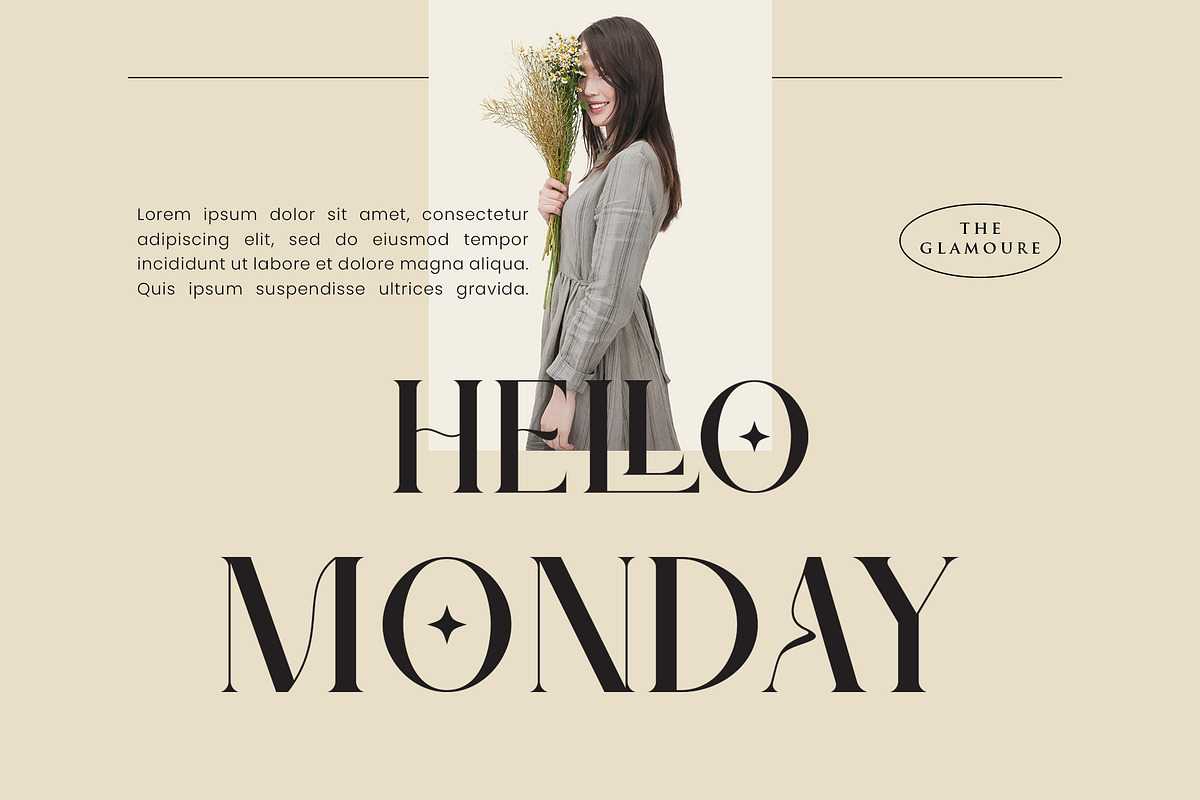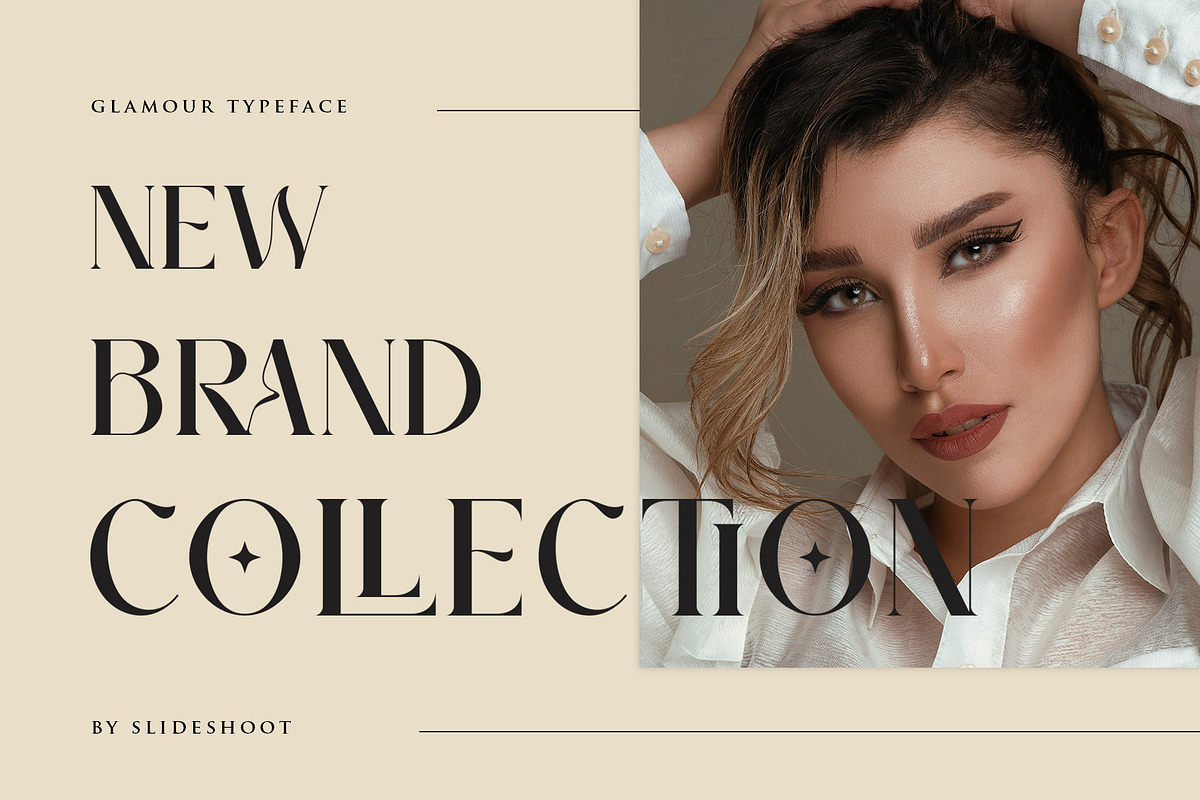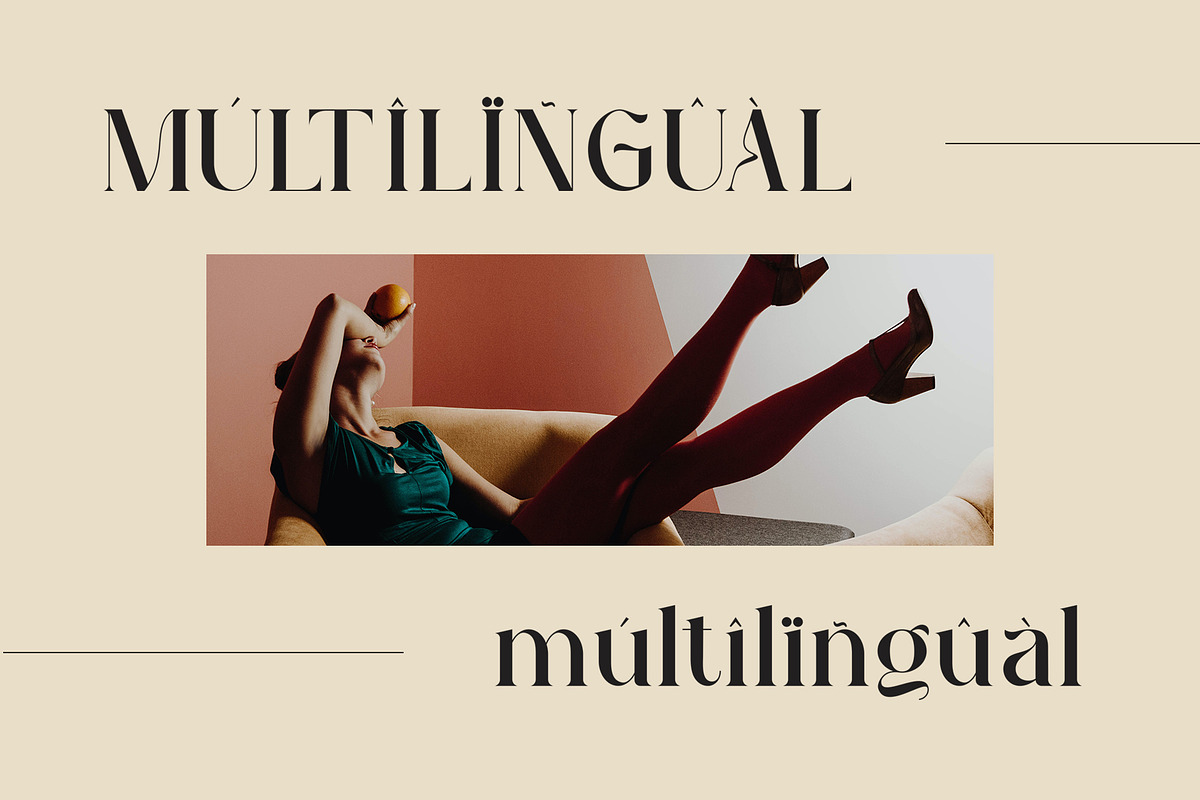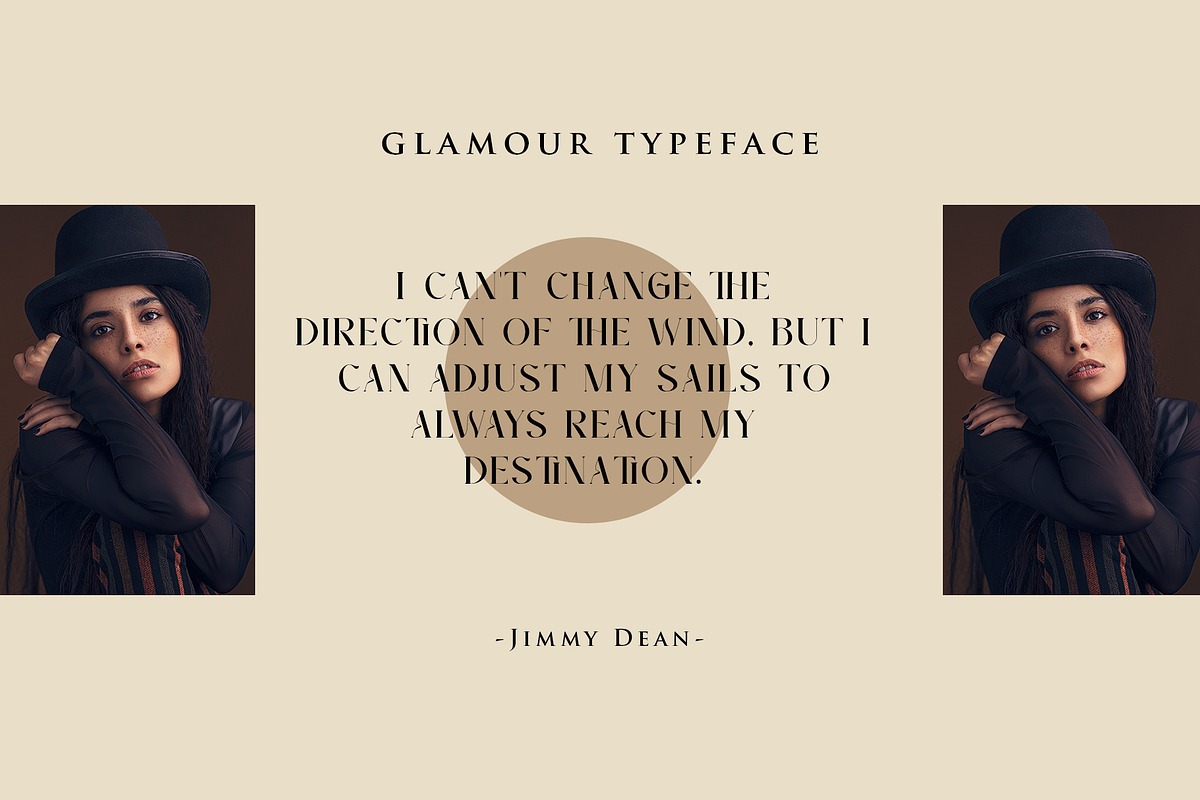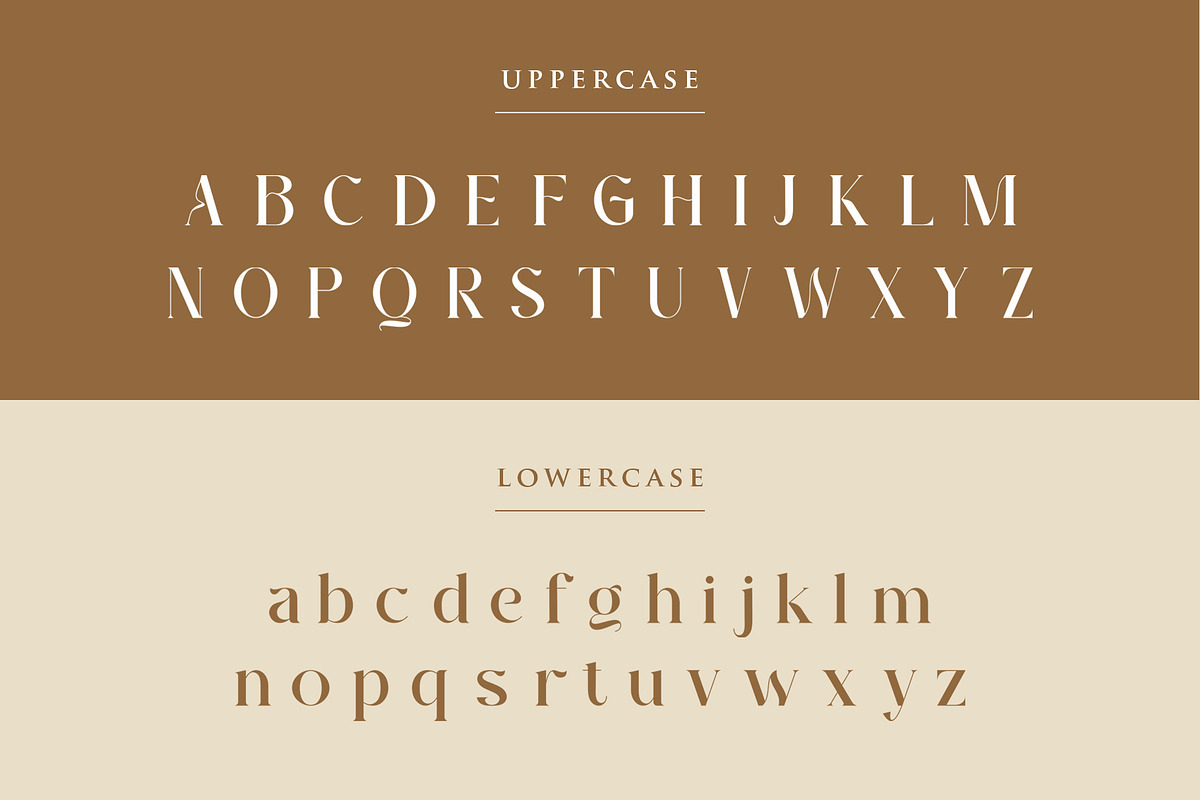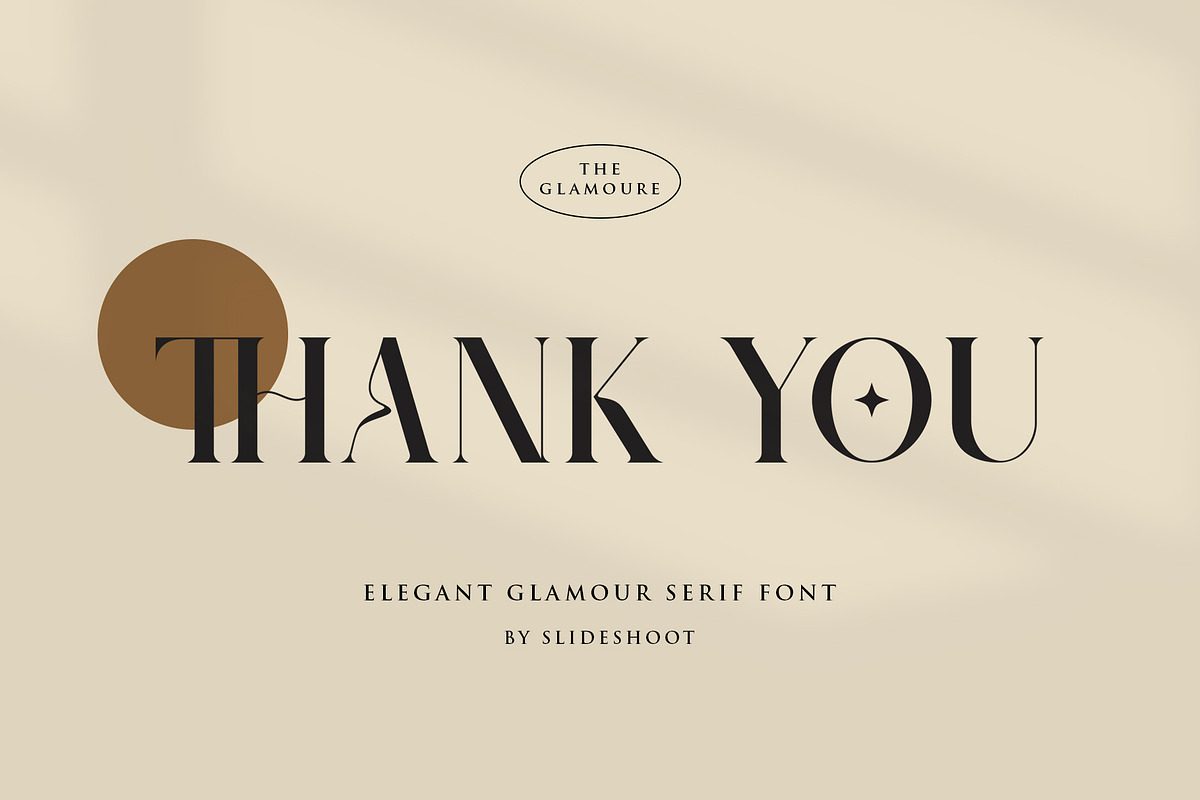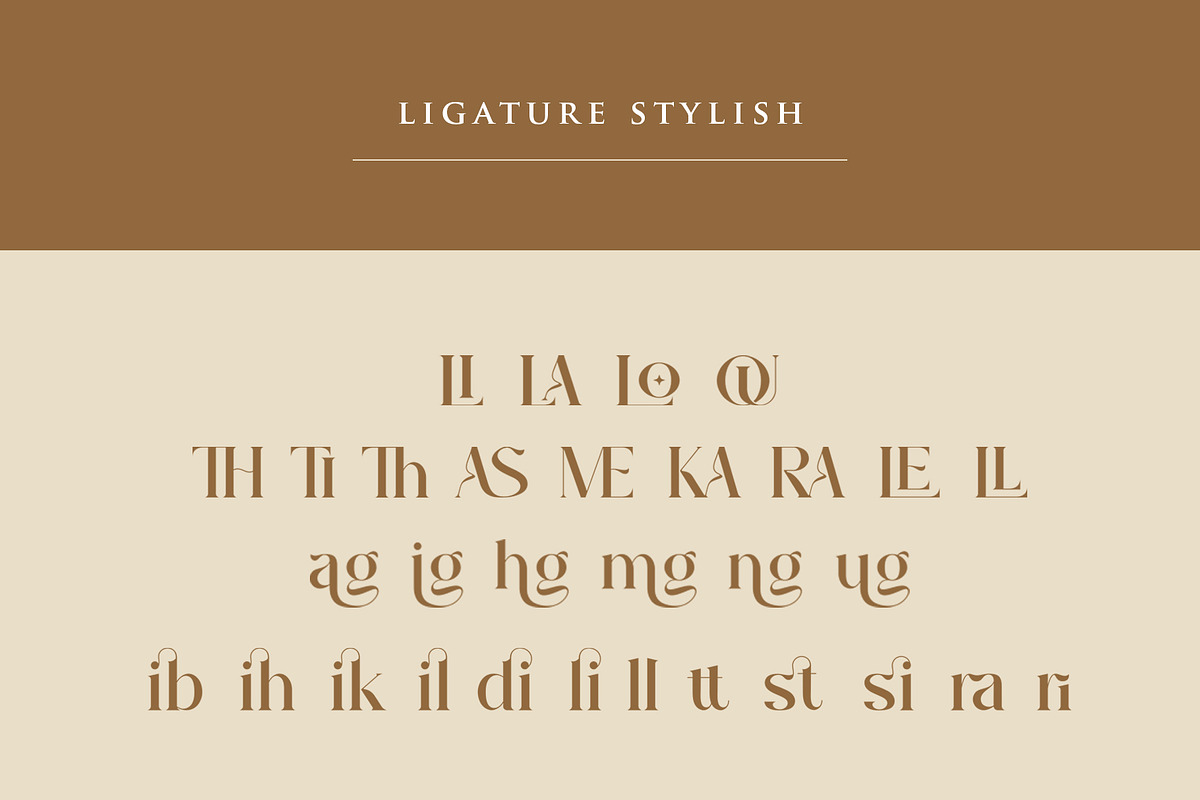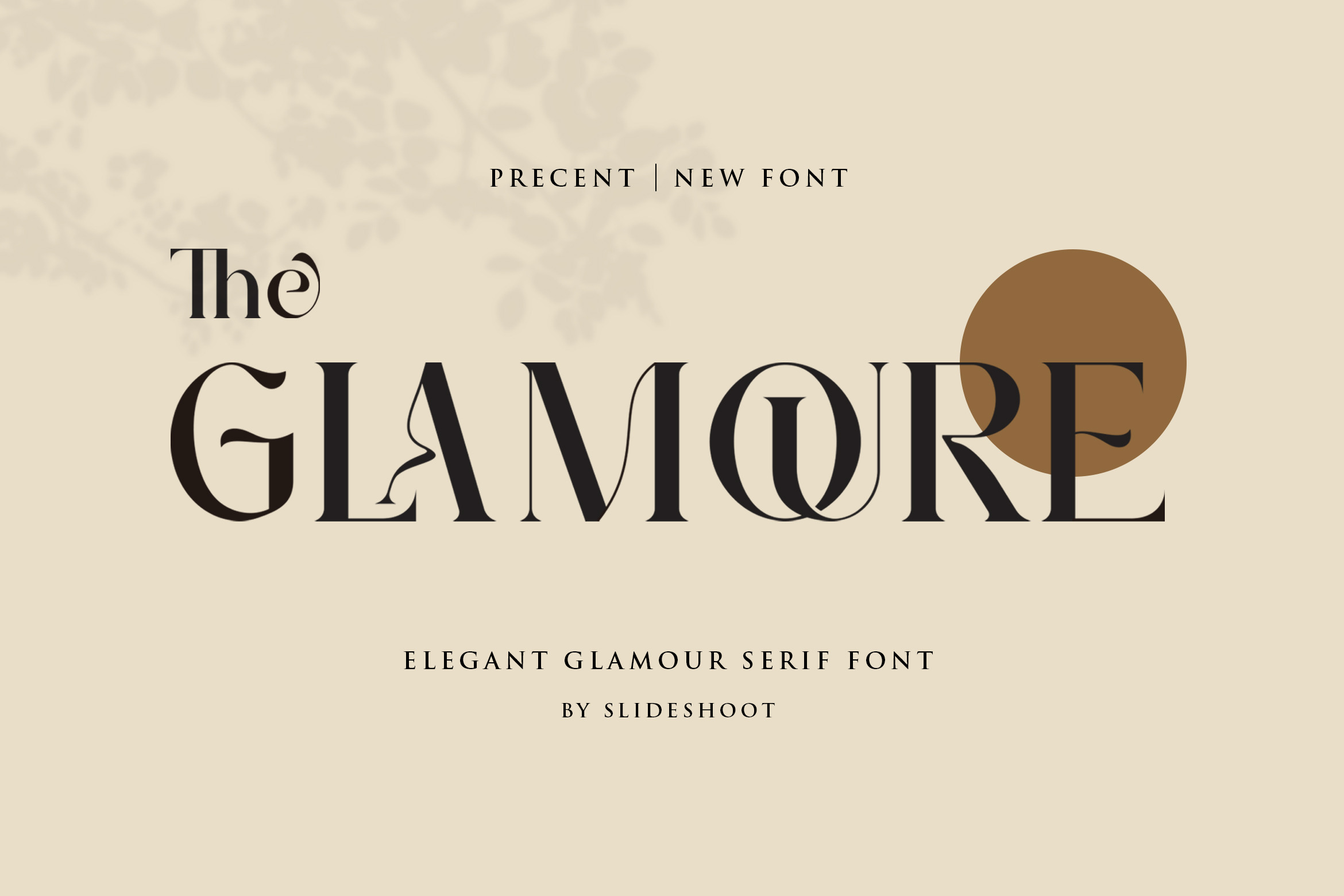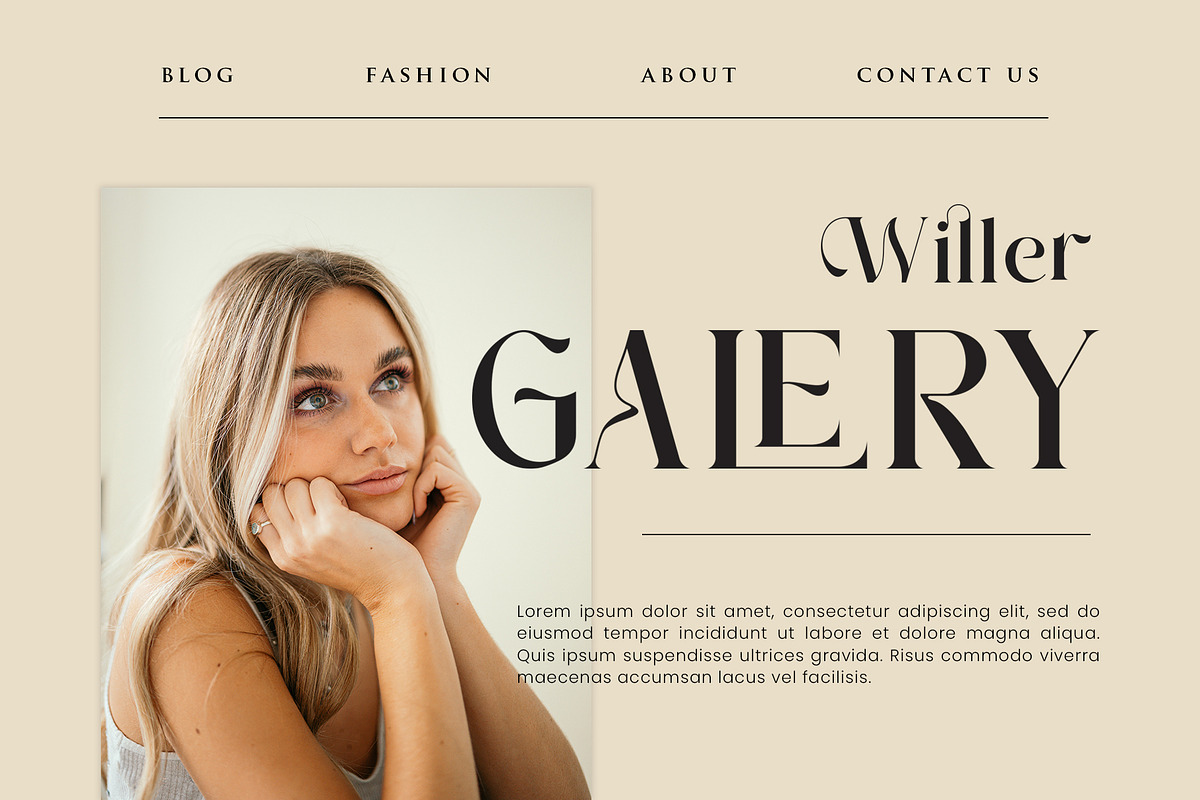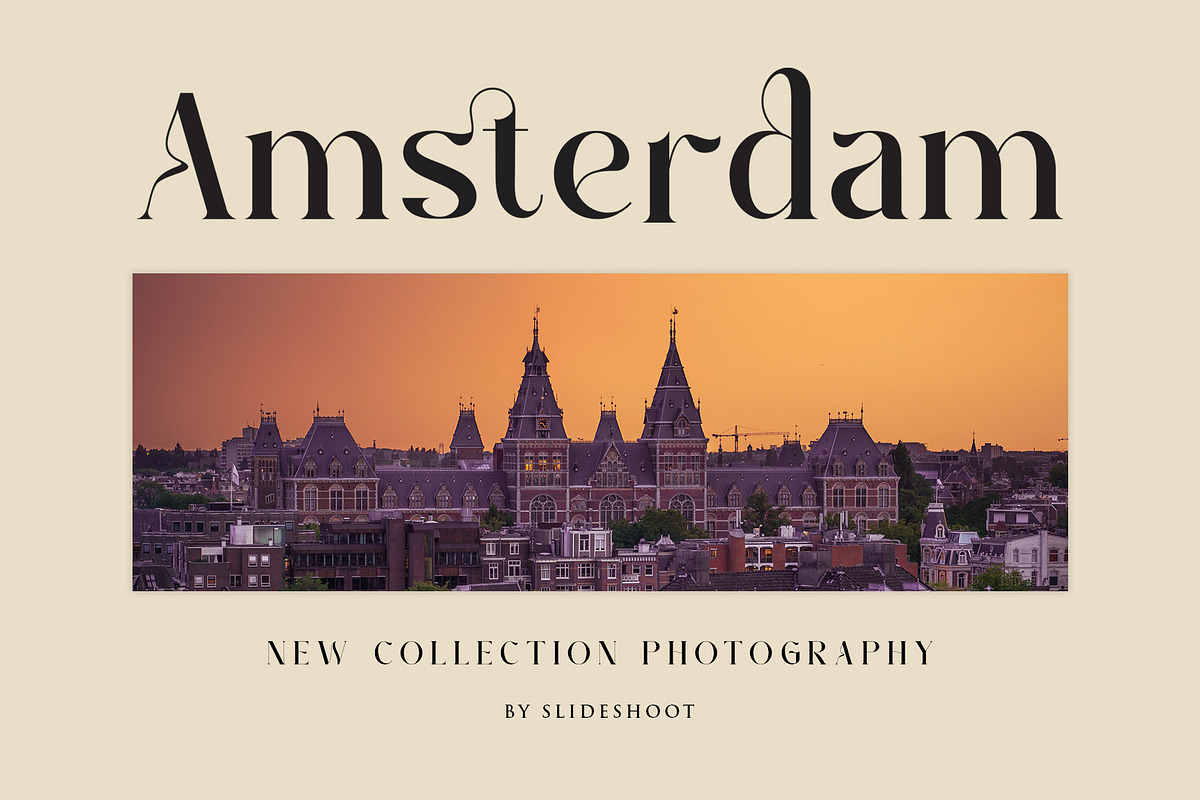
The Glamoure Serif Font
The Glamoure Serif is a balanced, smooth, elegant and stylish serif font. He has a beautiful character. It fits perfectly with invitation card designs, company logos, movie titles, movie names, business cards, book titles, brand names and various other designs. The Glamoure Serif is a subtle serif font that exudes sophistication and elegance. Its stylish alternations and ligatures make this font the perfect partner for any project.